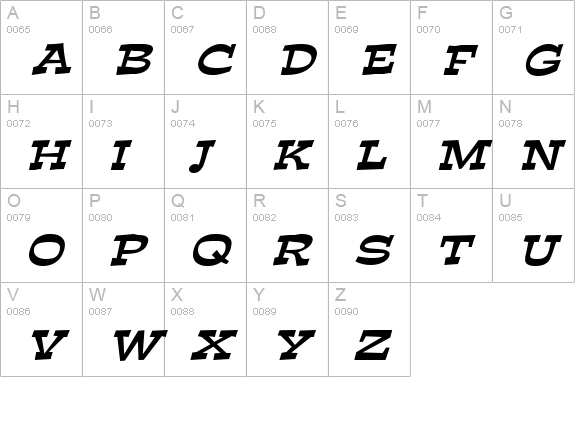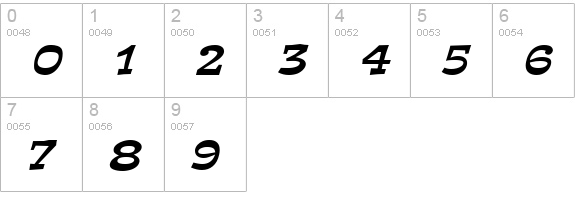
Expose Wide Italic is a distinctive, extended-width, italic variant in the Expose typeface family \xE2\x80\x94 well suited to design and typography projects.
Expose Wide Italic font is a stylish and modern typeface that exudes sophistication and elegance. With its sleek, italic design and wide letter spacing, this font is perfect for adding a touch of flair to any project. Whether you are designing a website, creating marketing materials, or working on a personal project, Expose Wide Italic font is sure to make a statement. The best part? Expose Wide Italic font is completely free to download at FontsMarket.com. Simply head over to the website to access this beautiful font and add it to your collection. Don't miss out on the opportunity to elevate your designs with the stunning Expose Wide Italic font - get it today and let your creativity shine!